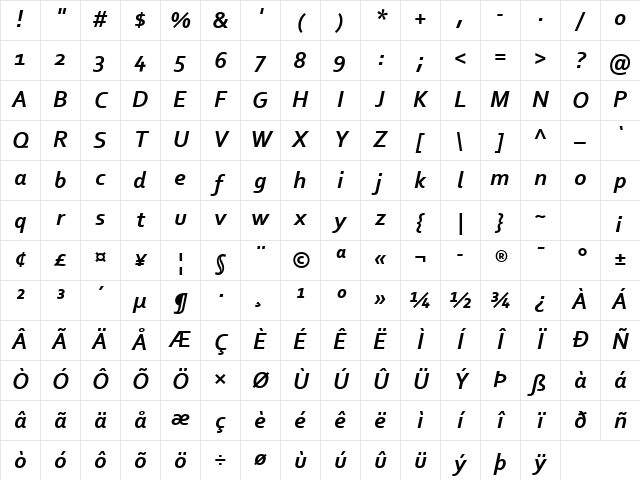
Corbel Bold Italic
Foundry: Microsoft Corporation
Designer: Jeremy Tankard
Corbel Family
Complete Corbel Bold Italic glyph index. Displaying only characters natively supported by Corbel Bold Italic font.
Design Context for Corbel
Corbel is a composed and adaptable typeface that performs quietly and consistently across a wide range of design contexts. The slanted form adds forward momentum and visual energy. Its bold stroke weight gives it real presence on the page.
Pro Tip: Use Corbel for emphasis, pull quotes, and subheadings where its slanted energy can add rhythm to the layout.